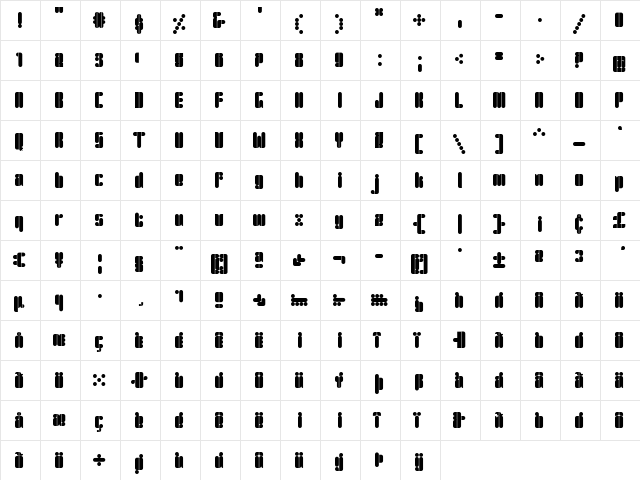
GigaFlop Regular
Design Context for GigaFlop Typeface
GigaFlop is a composed and adaptable typeface that performs quietly and consistently across a wide range of design contexts.